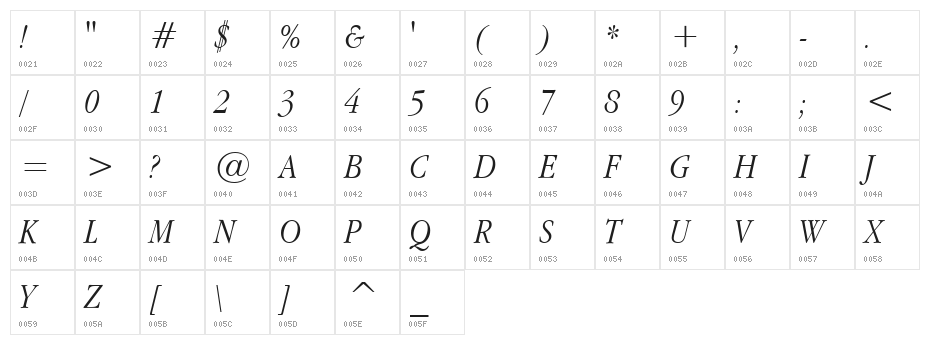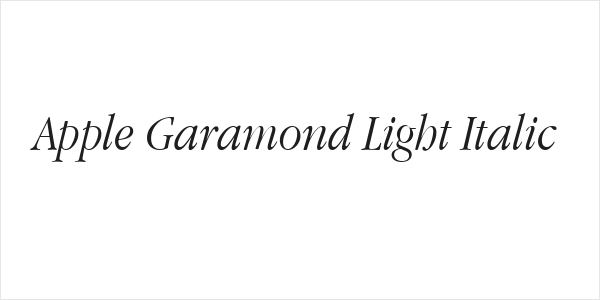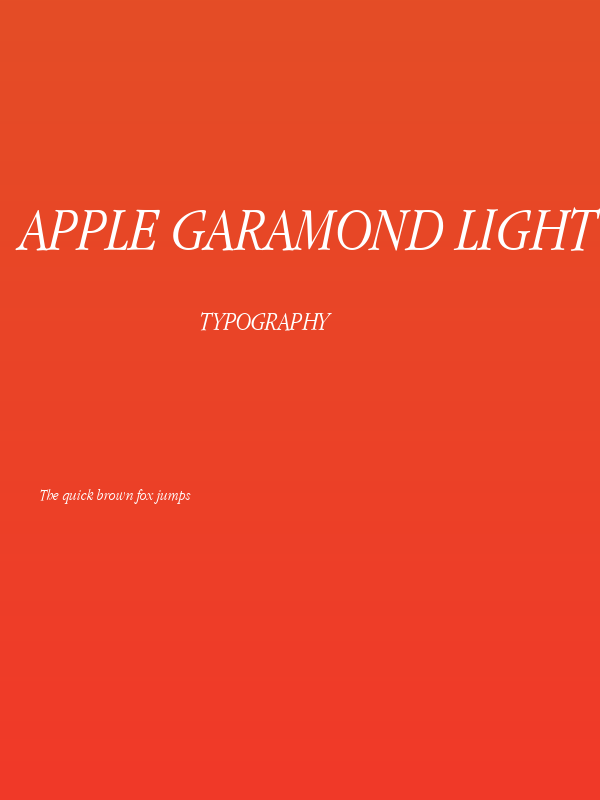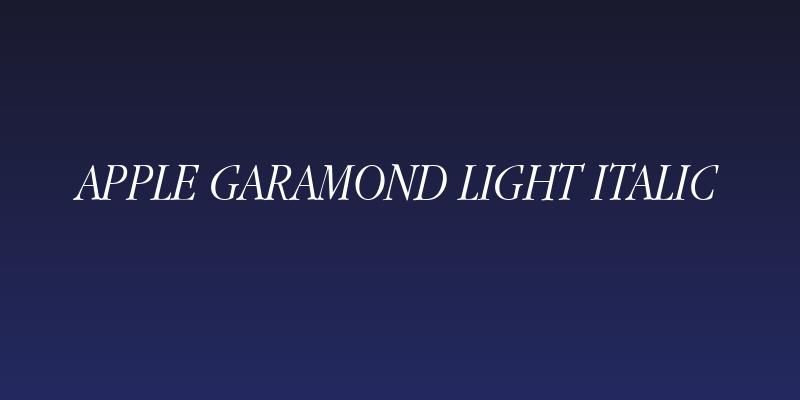
Apple Garamond Light Italic Font
Apple Garamond Light Italic Description
This elegant serif typeface features a refined and sophisticated design, characterized by its light weight and italic style. The font exhibits a classic and timeless appeal, with smooth curves and a gentle slant that adds a touch of elegance. The uppercase letters are tall and stately, while the lowercase letters maintain a harmonious balance with their slightly rounded forms. The numerals are clear and legible, complementing the overall aesthetic. Special characters are well-integrated, maintaining the font's cohesive look. This typeface is ideal for projects that require a touch of class and sophistication.
| Use Case | Logos, Headlines, Editorials |
| Proposed Projects | Ideal for luxury branding, editorial design, wedding invitations, and high-end product packaging. |